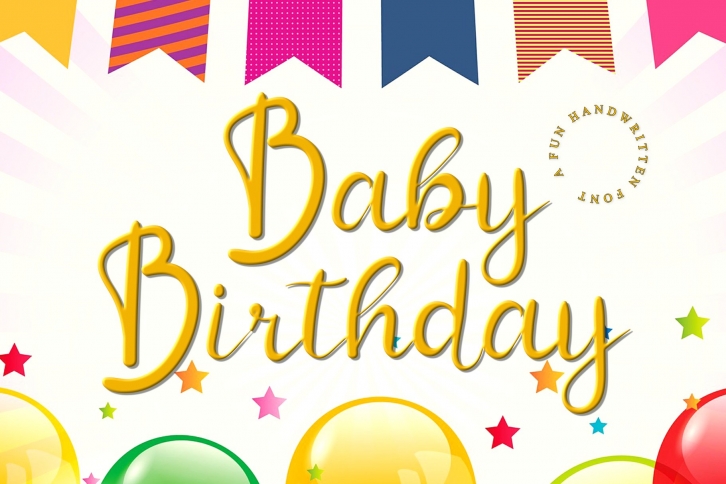
Baby Birthday is a trendy and unique font with an authentic style. It was designed by Giart Studios and it's a great choice for creative people who need such a font. It was released on June 13, 2021 and the file size is 19.46 MB. Baby Birthday will add an organic vibe to any design idea!